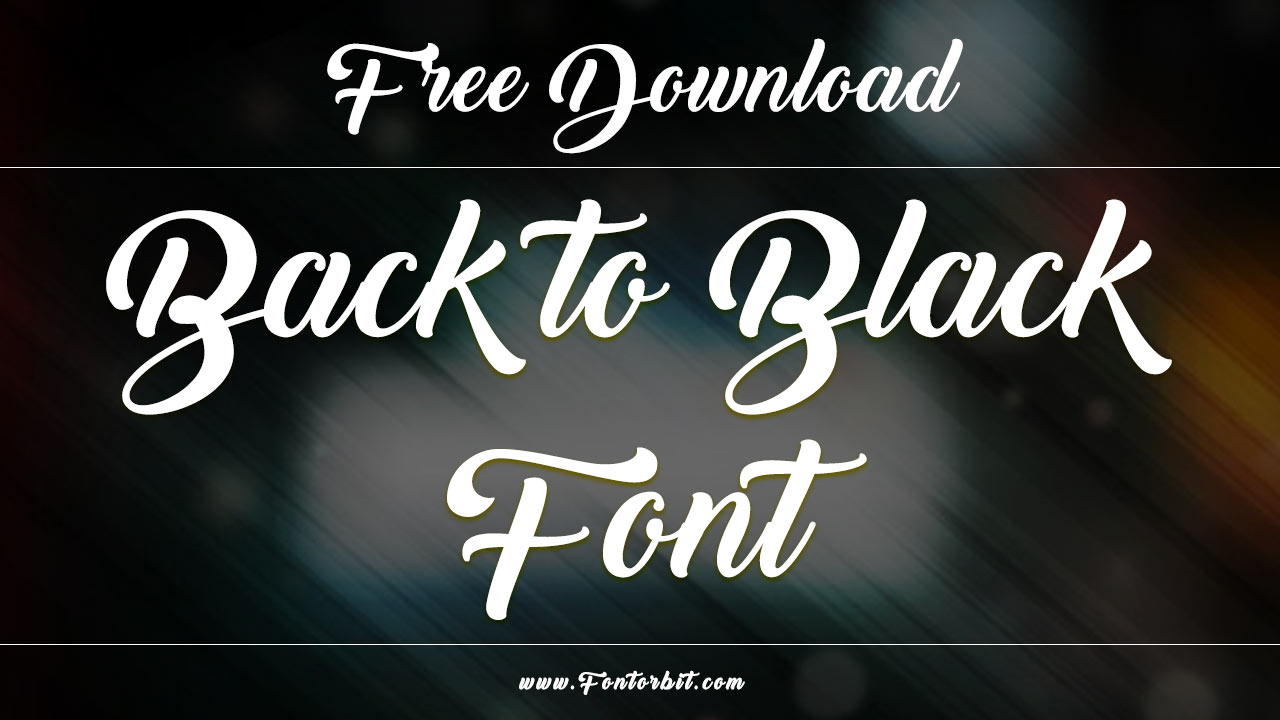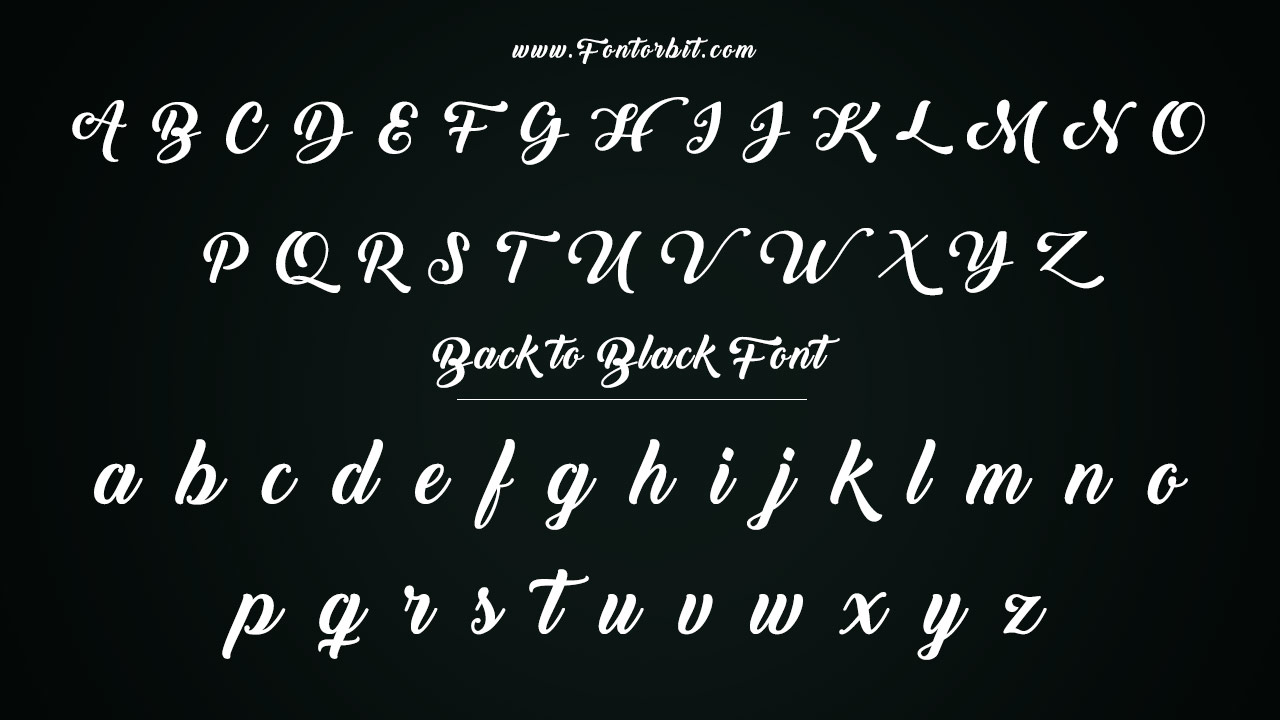
The “Back to Black” font is an elegant and bold calligraphy typeface designed by Misti’s Fonts. Released as a demo version, it has quickly gained popularity due to its stylish, bold strokes and distinctive script design.
Known for its flexibility, this font is commonly used in modern and vintage design projects, offering a perfect mix of elegance and impact. With over 4,600 downloads, “Back to Black” is the go-to choice for designers looking to add flair to printed materials and digital content.
Key Takeaways:
- Back to Black font is a decorative calligraphy script.
- It includes bold strokes that are perfect for emphasizing desired text.
- A great choice for those needing vintage fonts, script fonts, or modern fonts.
Back To Black Font Information
| Name | Back to Black |
| Style | Calligraphy, Script |
| Designer | Misti’s Fonts |
| Type | Decorative Font |
Where Back To Black Is In Use
- Printed materials like posters, flyers, and invitations
- Website headers and banners, where elegance and boldness are needed
- Design projects, especially for vintage fonts or retro fonts themes
- Text designs that require bold strokes and a personal touch
- Handwritten fonts projects, especially in calligraphy or script fonts
- Logos for brands that want to convey elegance and modernity
1.What Is The “Back To Black” Font Used For?
It’s ideal for invitations, branding, and other printed materials where a calligraphy font or bold strokes are needed.
3.What Are Similar Fonts To “Back To Black”?
Similar fonts include Misti Hammer, Sky Kingdom, and Gloria Hanna, which also feature bold strokes and a vintage feel.
5.What Kind Of Fonts Does Misti’s Fonts Specialize In?
Misti’s Fonts creates script fonts, decorative fonts, and modern fonts, all with a unique touch of elegance and boldness.
6.What Is The “Back To Black” Character Map Like?
The character map includes a wide variety of letters, symbols, and punctuation suitable for a range of design projects.
7.How Does “Back To Black” Compare To Other Serif Fonts?
Unlike serif fonts, which have small lines at the ends of characters, “Back to Black” features clean script fonts with fluid, decorative lines.
9.What Types Of Designs Can Benefit From “Back To Black”?
It’s great for logos, printed materials, invitations, and other designs that require bold fonts or vintage fonts.
10.What Makes “Back To Black” A Popular Font?
Its elegance, bold strokes, and versatility for a range of projects make it one of the most popular fonts in the design community.